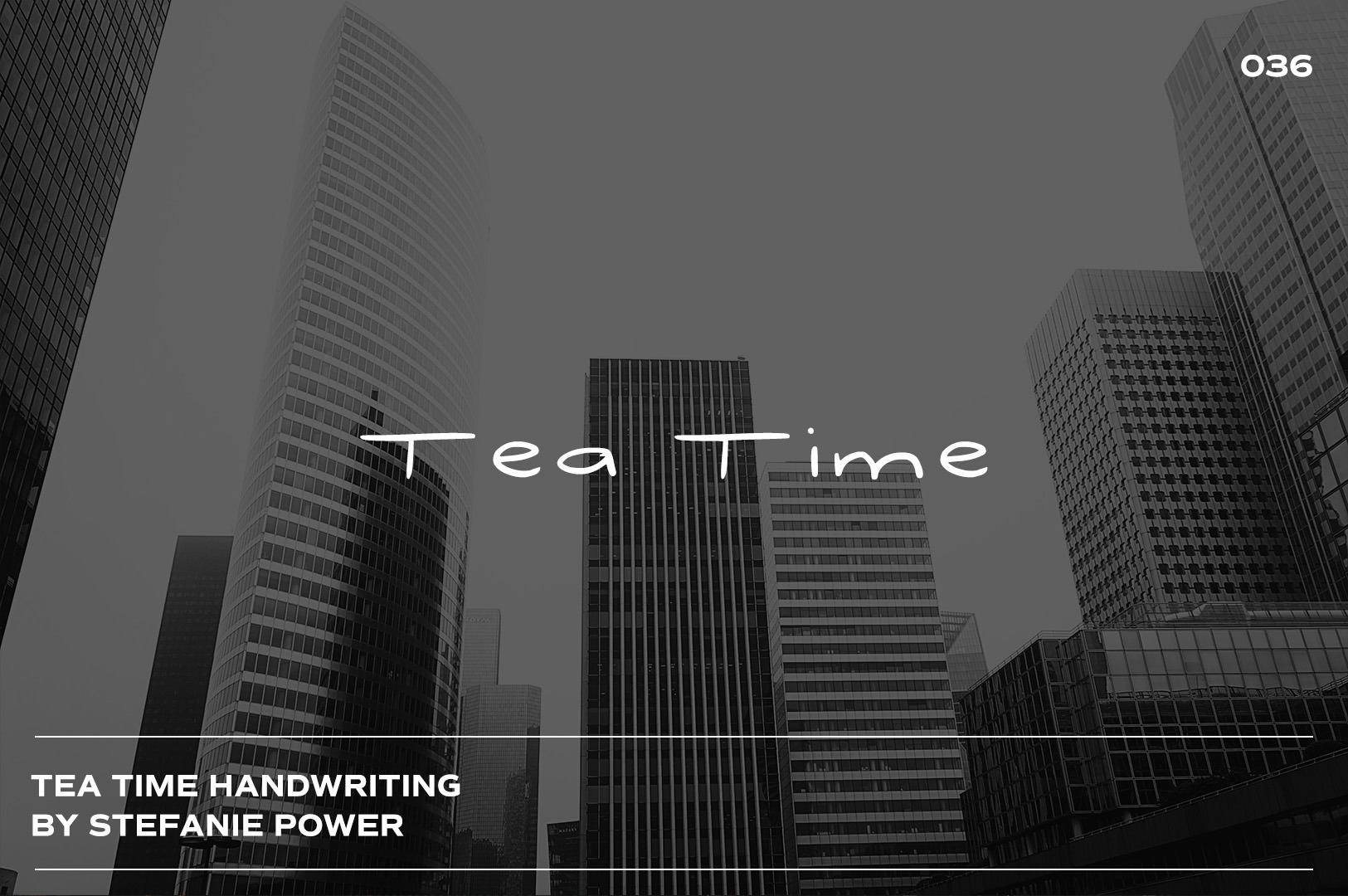
Tea Time | Handwritten Font
Introducing 'Tea Time' - a stretched handwritten font.
Tea Time • A handwritten font containing upper & lowercase characters and a range of punctuation and numbers. As well as character variations.